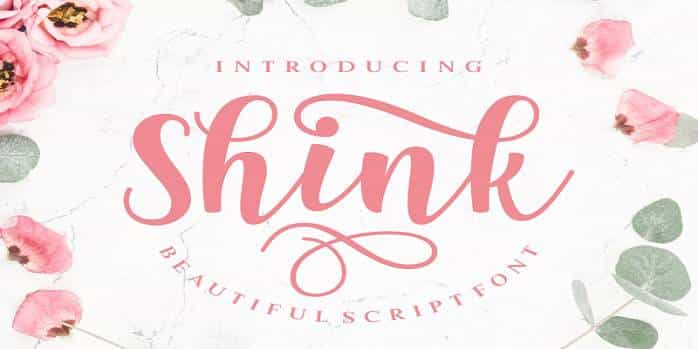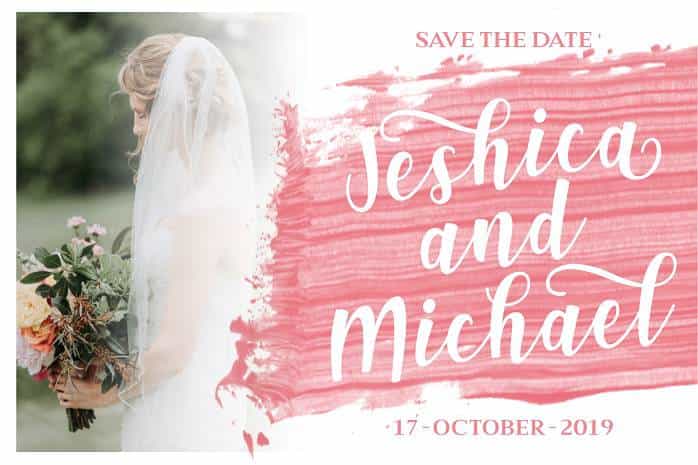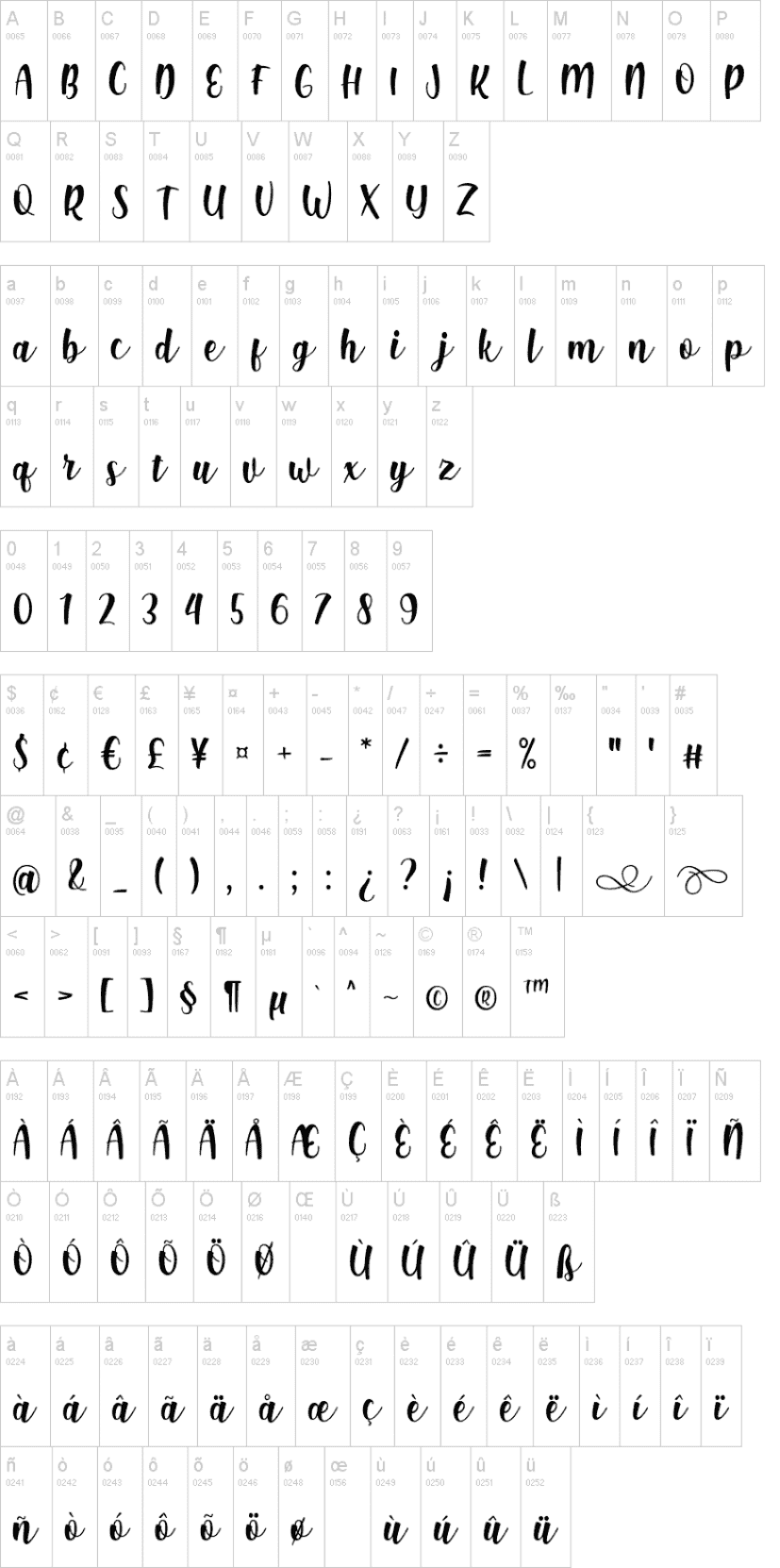
Discover Shink Font, part of the Calligraphy collection—a versatile and unique font perfect for adding a personal touch to your projects. Download it for free and enjoy crafting designs with style, from invitations to social media posts. This font is available exclusively for personal use, giving you the freedom to create without limits. Unlock your creativity with Shink Font today!
Shink is a calligraphy font that can be used in poster designs, invitation and greeting card designs, newsletters, and other design projects that require an elegant look and feel. This free model contains all letters, both big and small and a few special symbols as well.